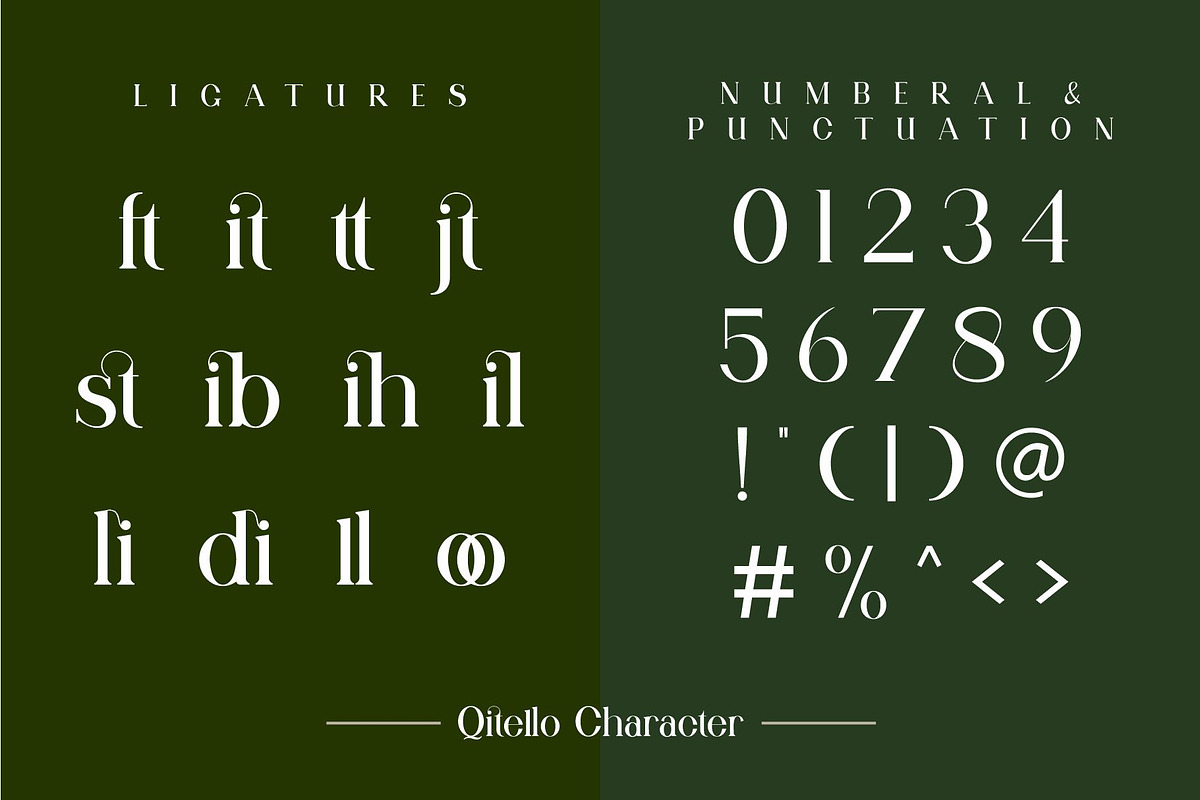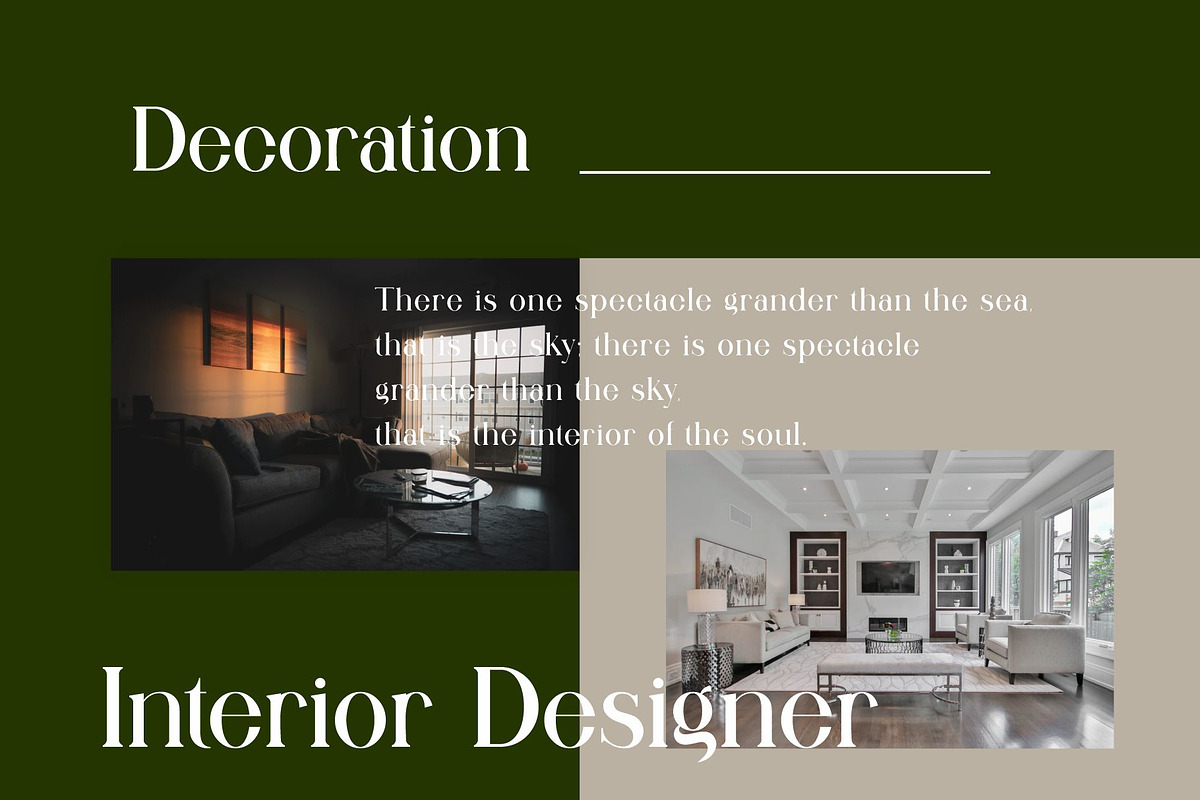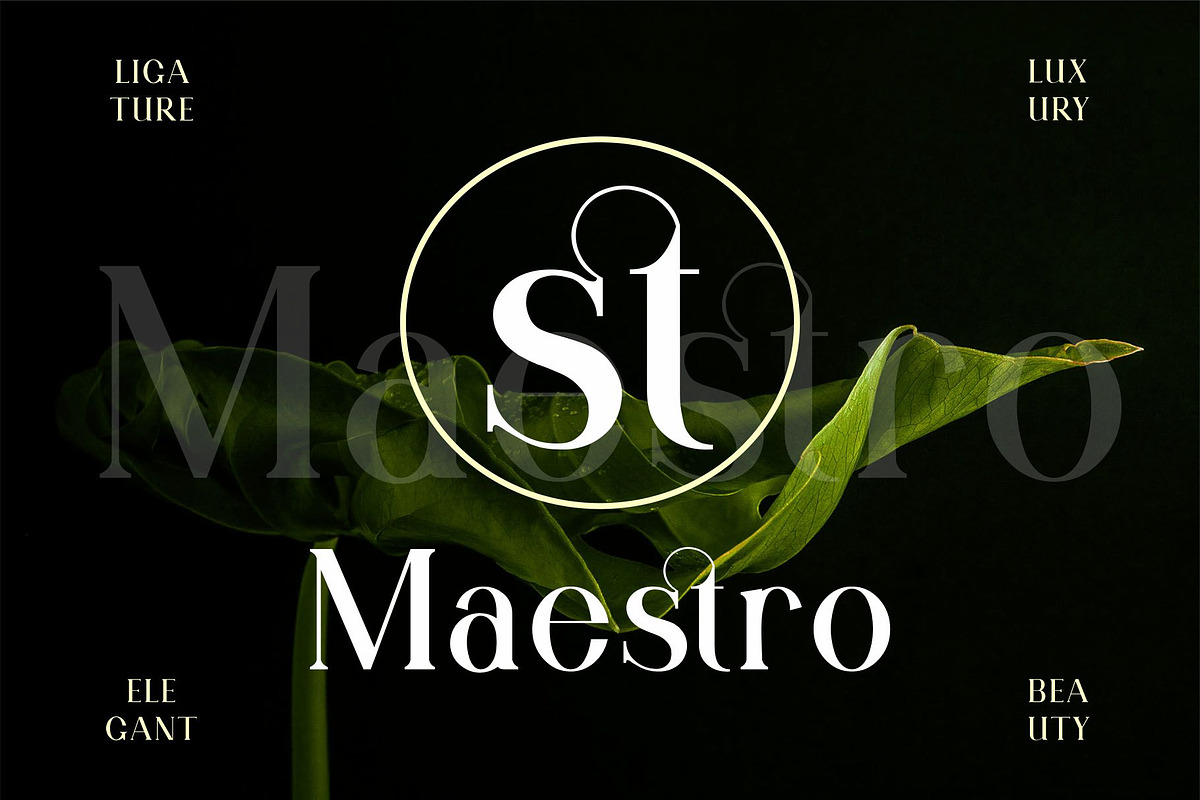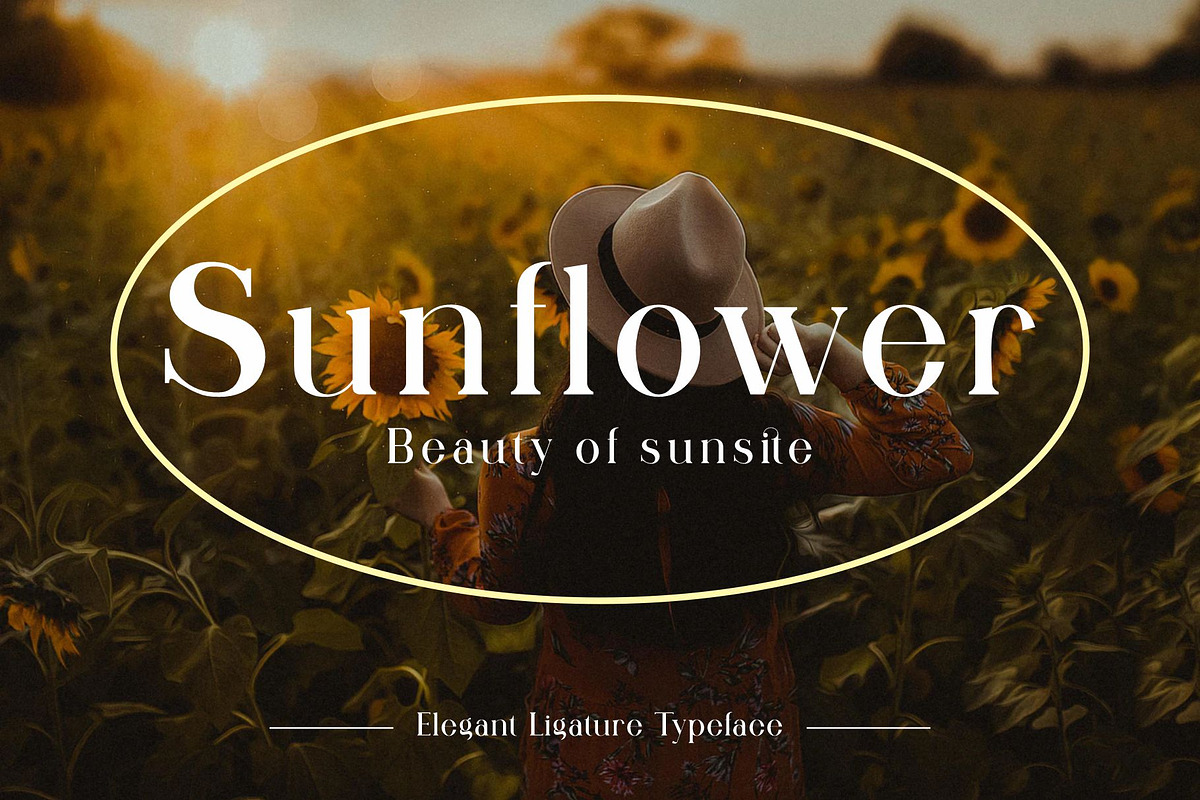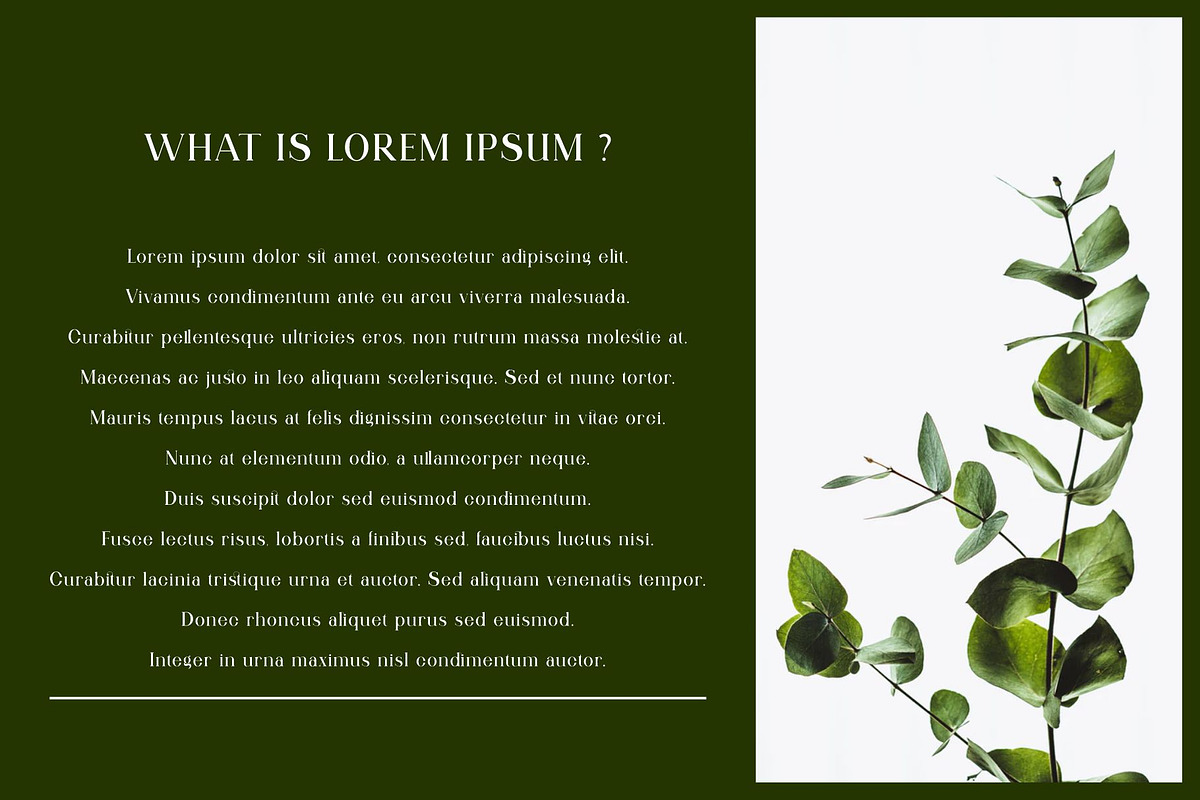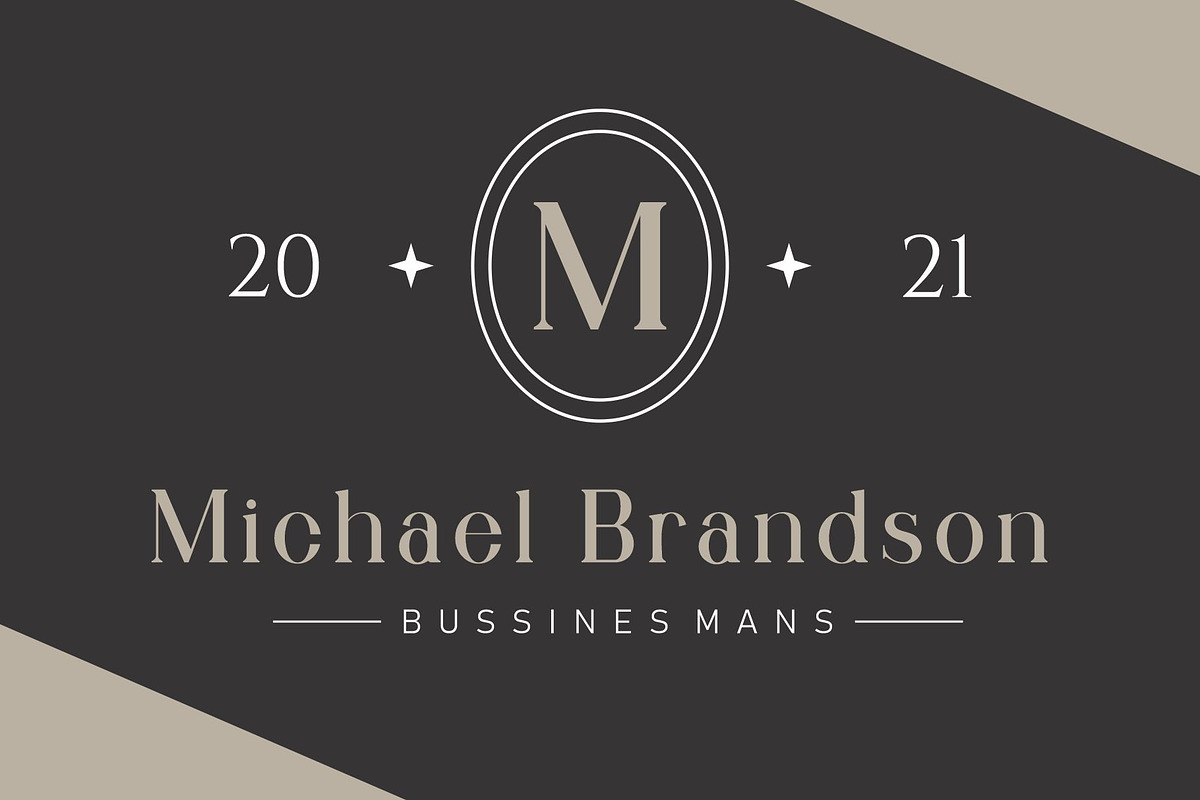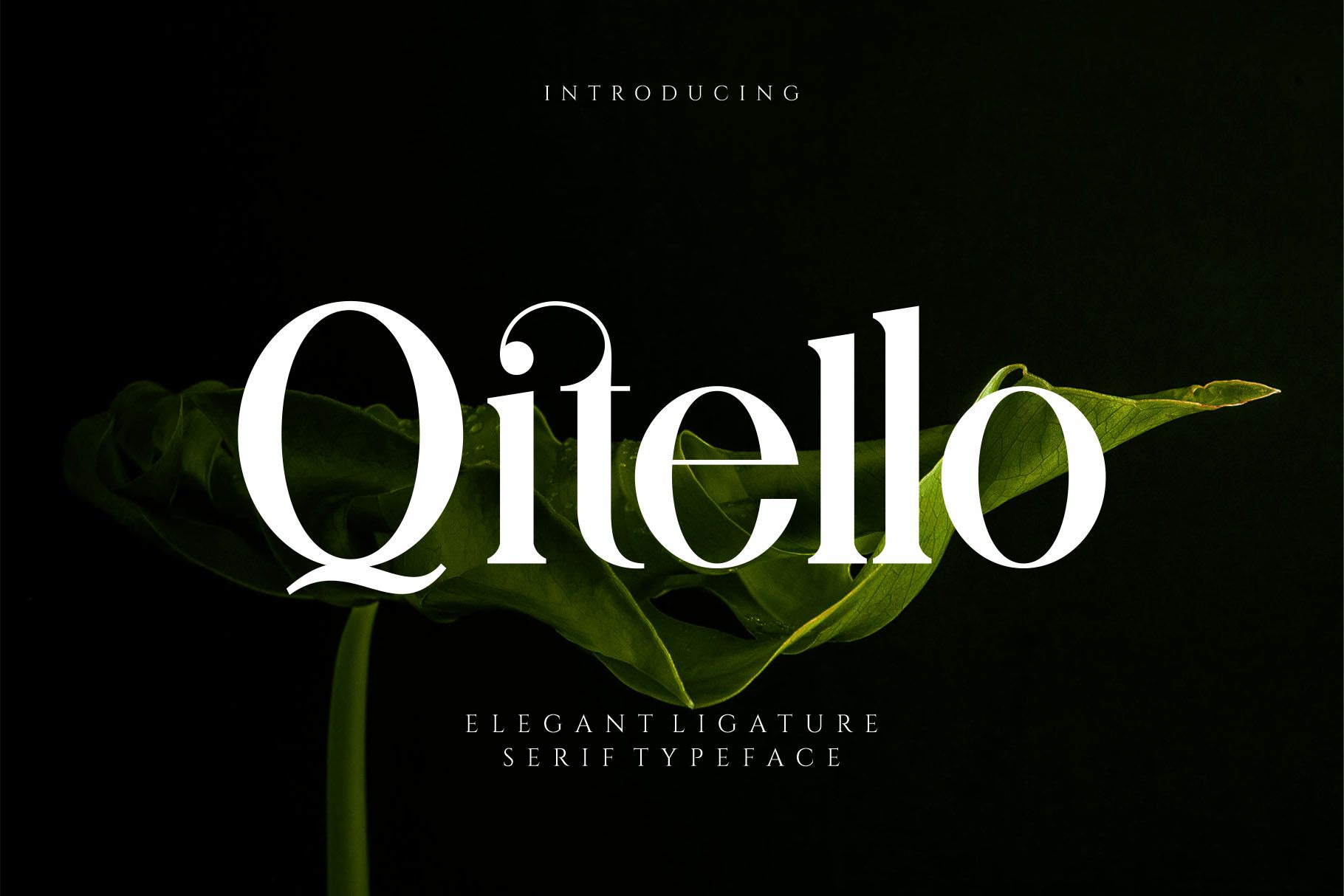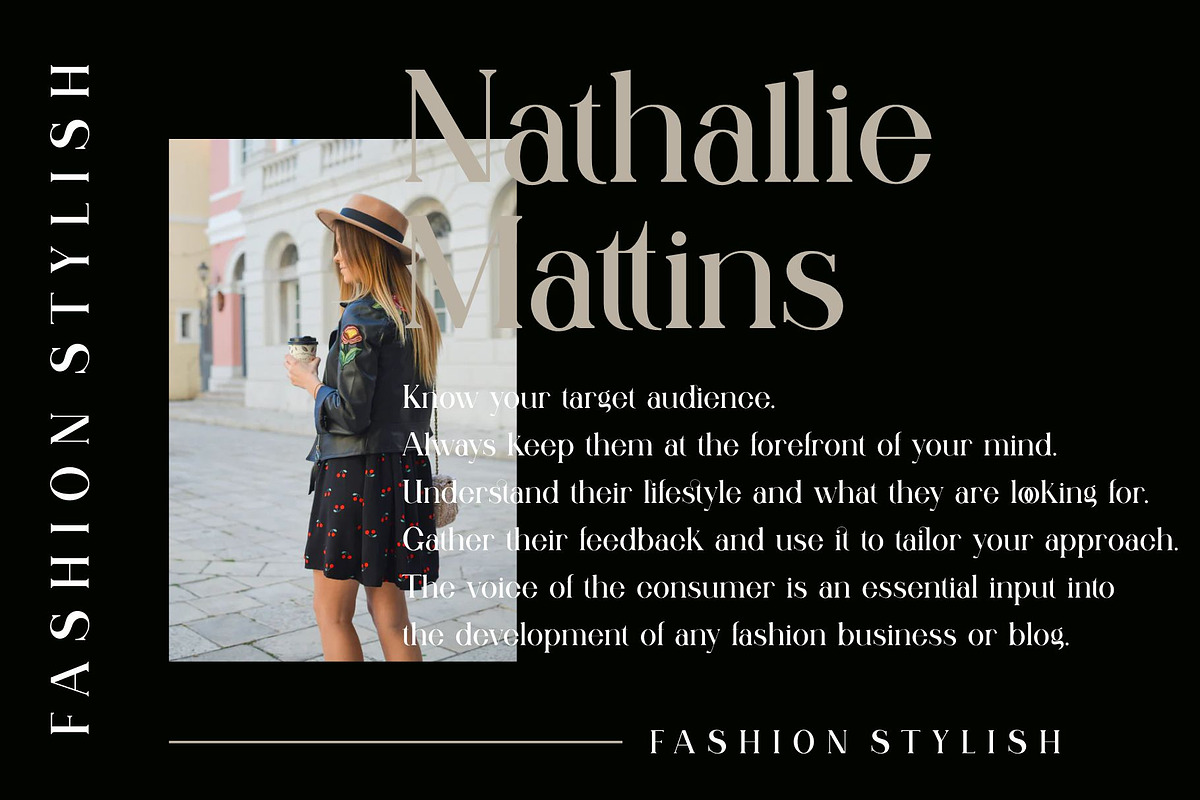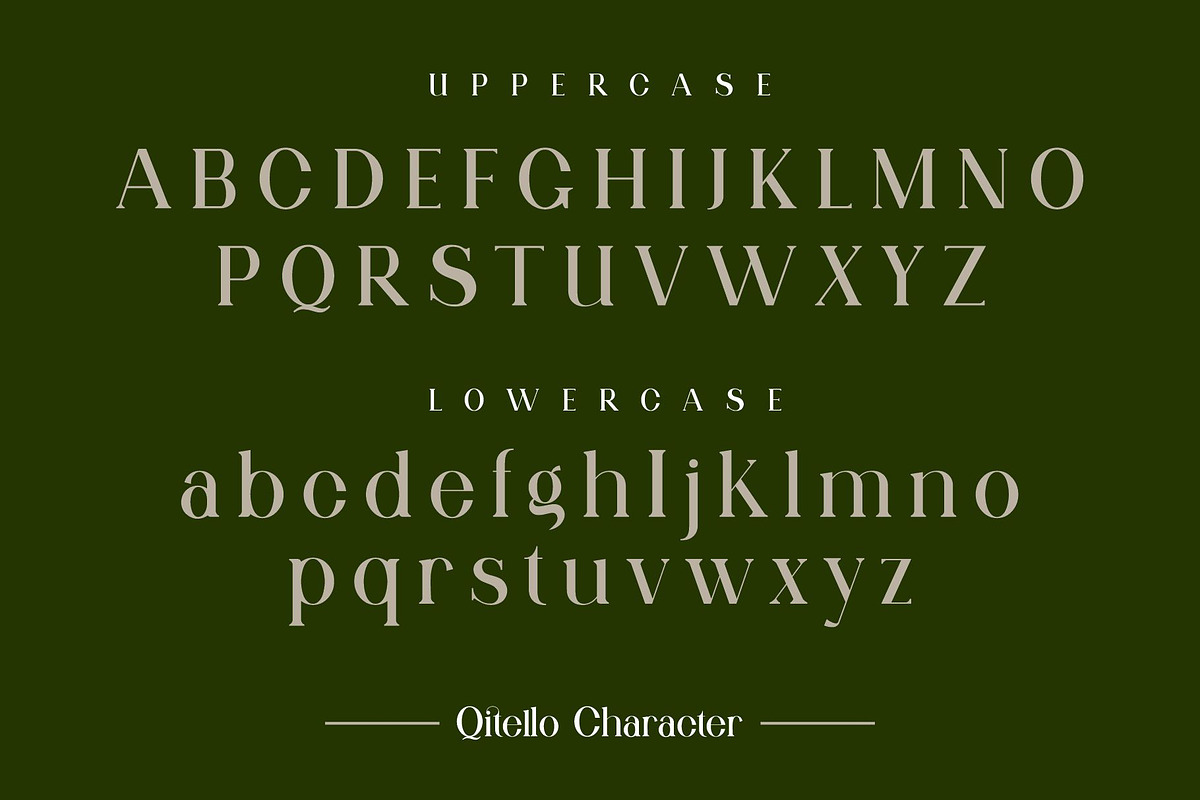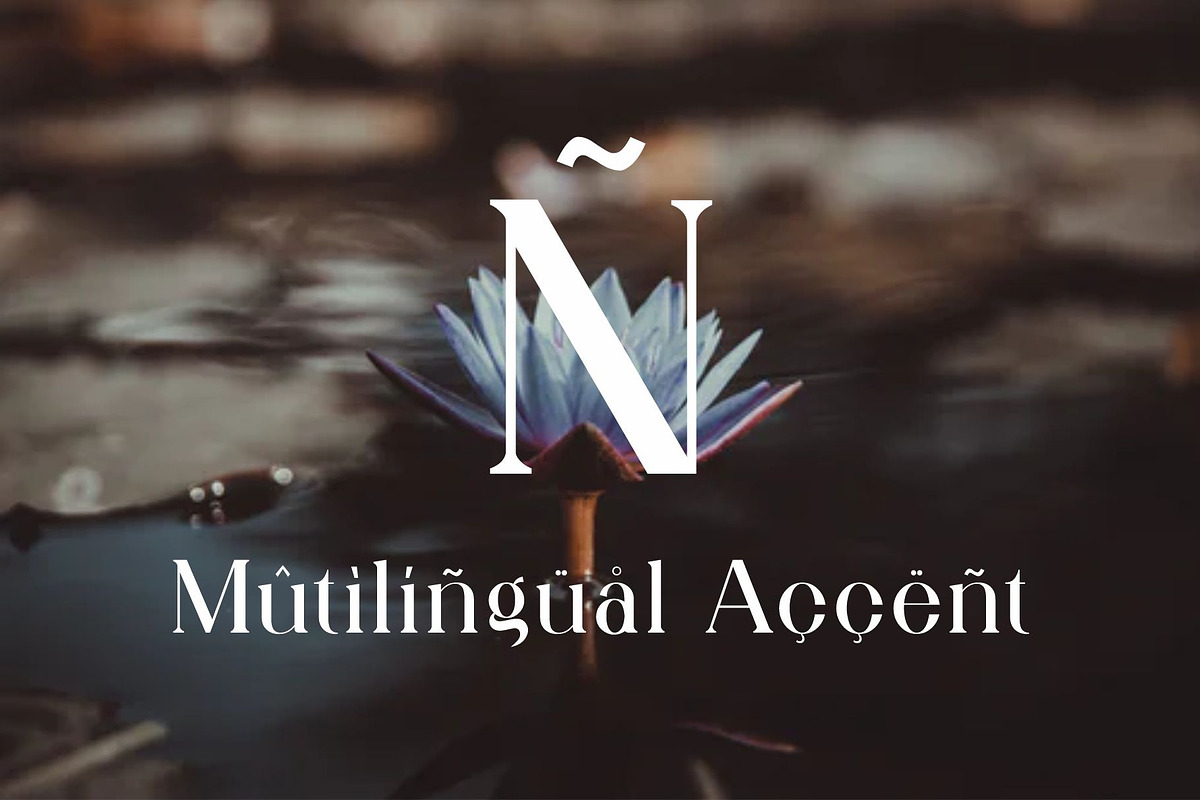
Qitello Ligature Serif Typeface
Qitello is a elegant and classy serif typeface – This font is both modern and nostalgic and works great for logos, magazine, social media. Already matched up and ready to be used together for your next design! For those of you who are needing a touch of elegant, stylish, classy, chic and modernity for your designs, this font was created for you!
Qitello was built with OpenType features and includes ligatures, numbers, punctuation, and it also supports other languages.